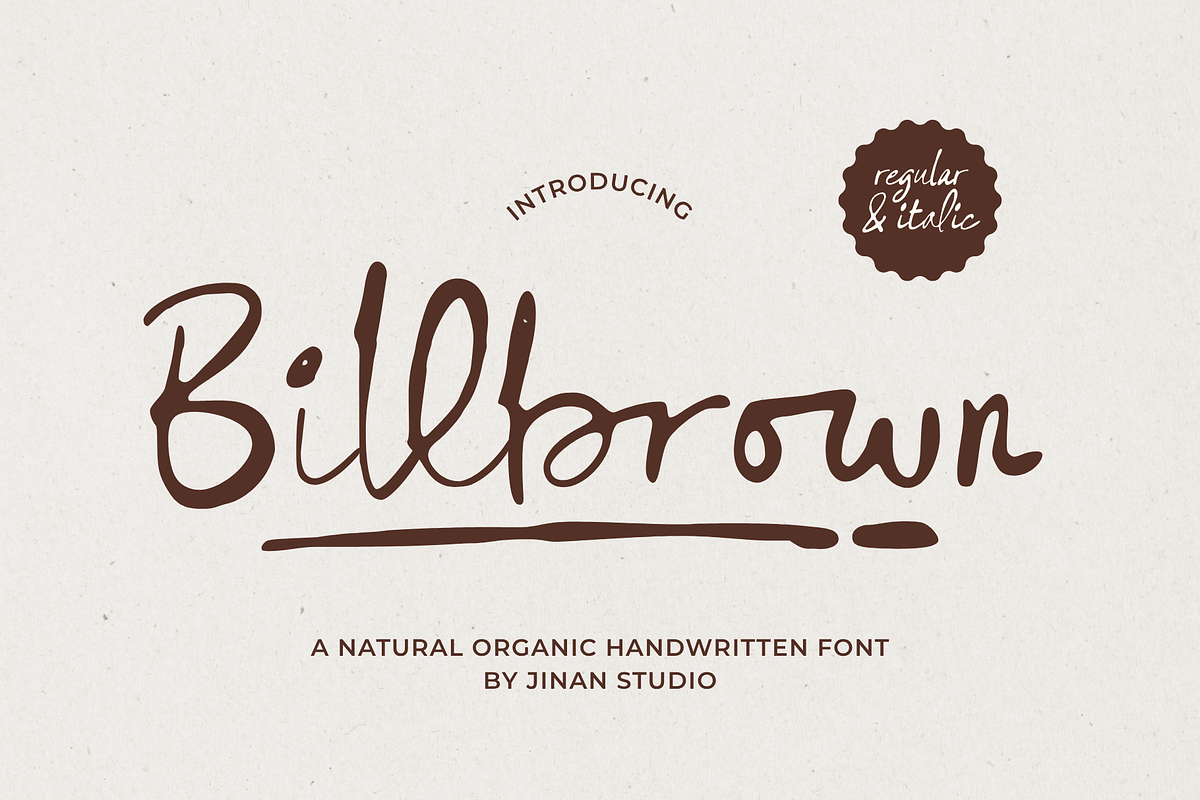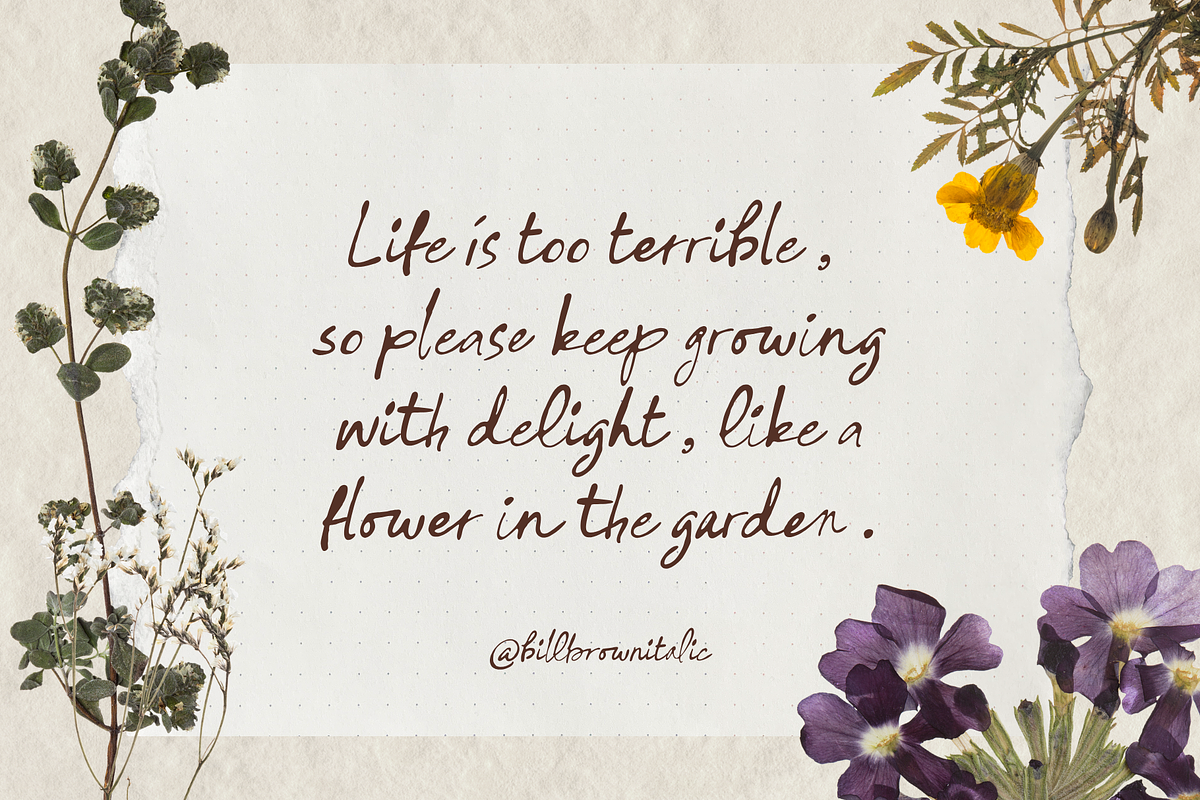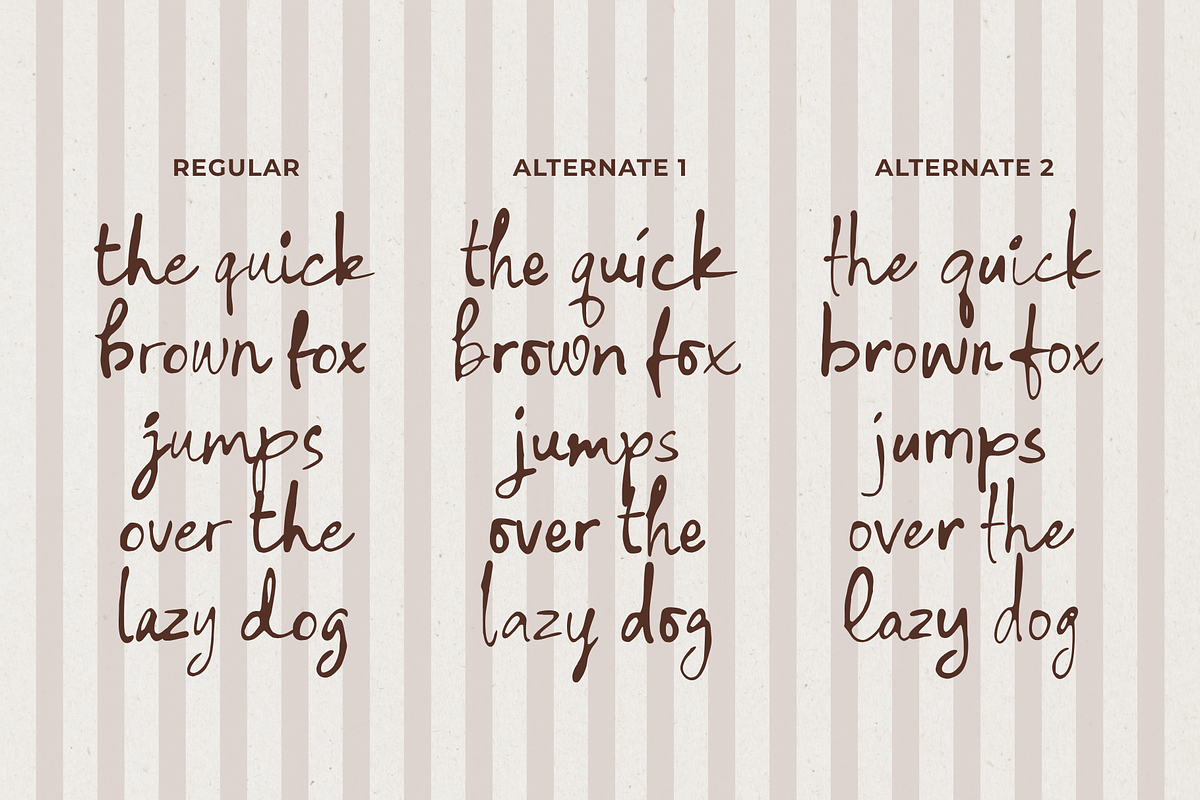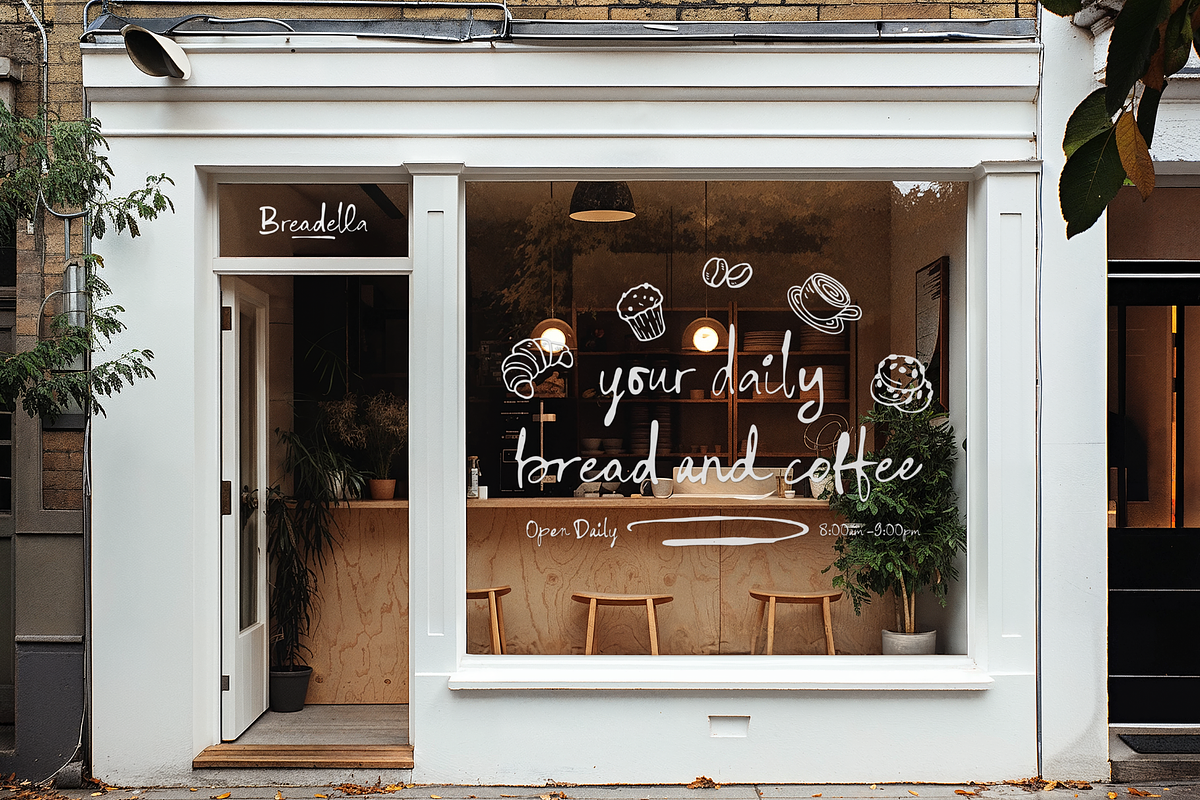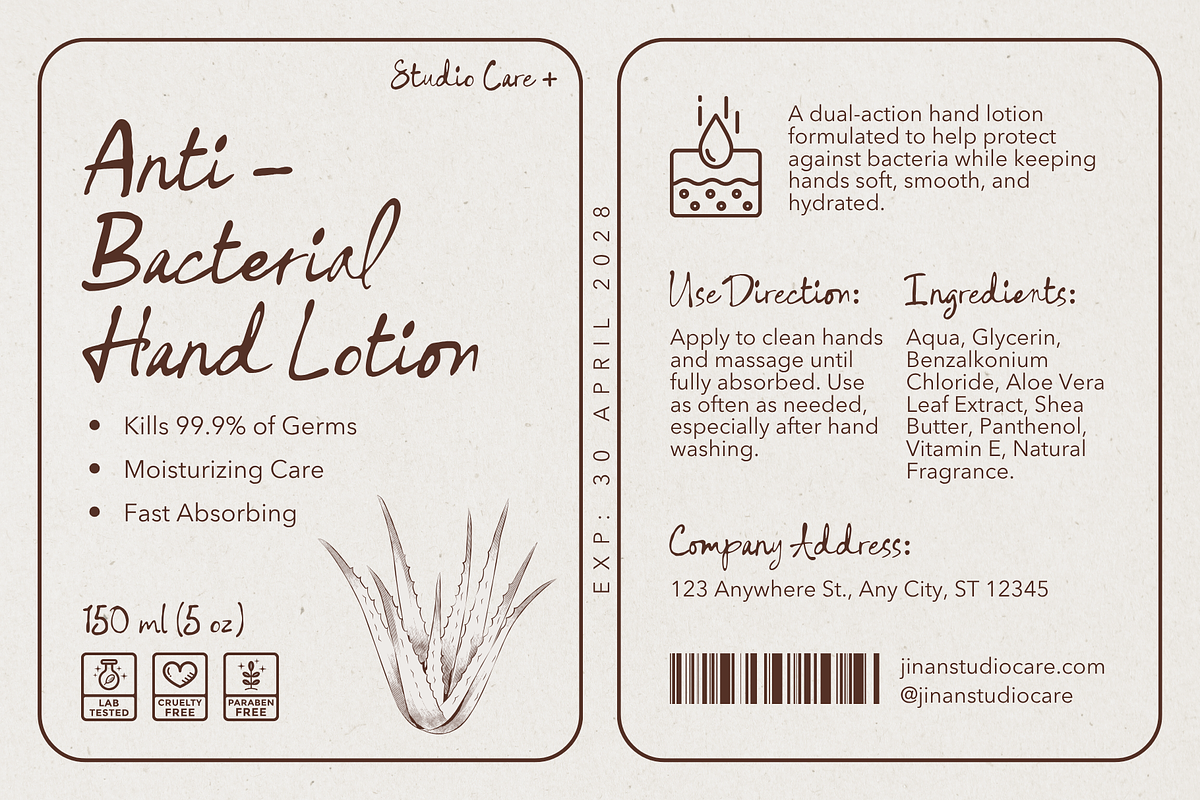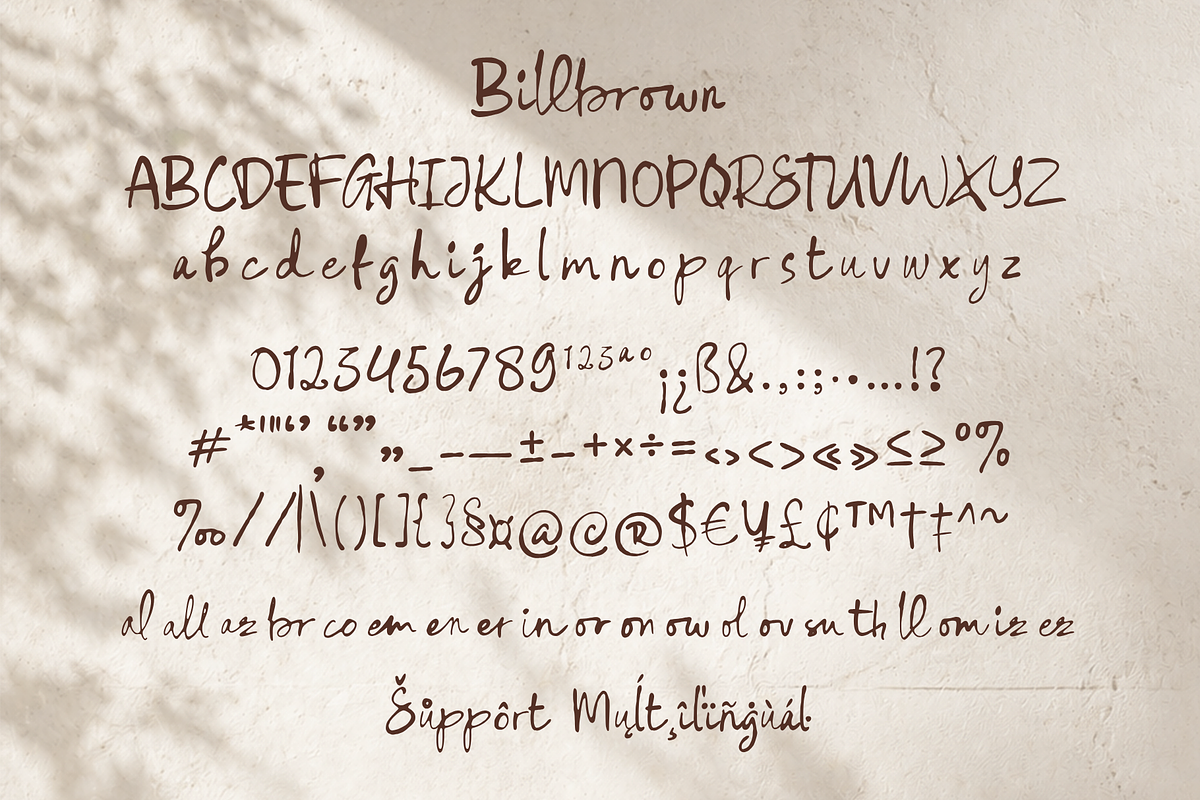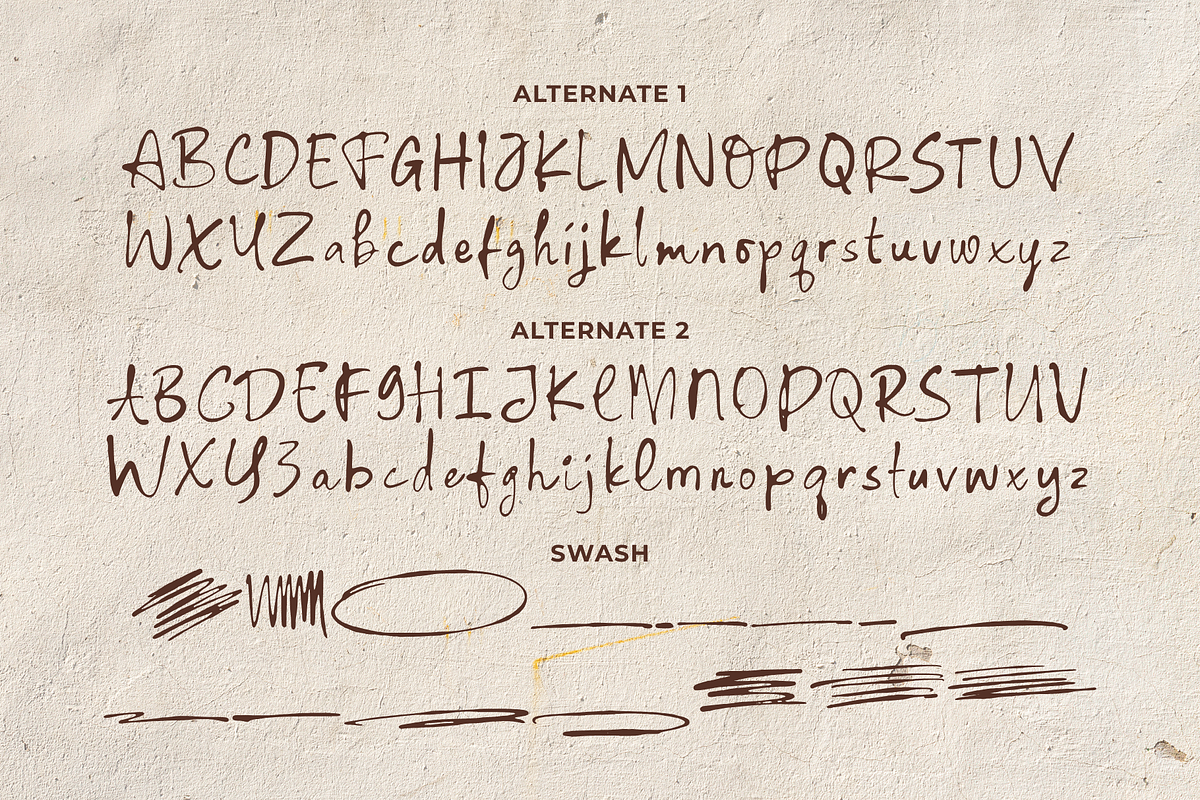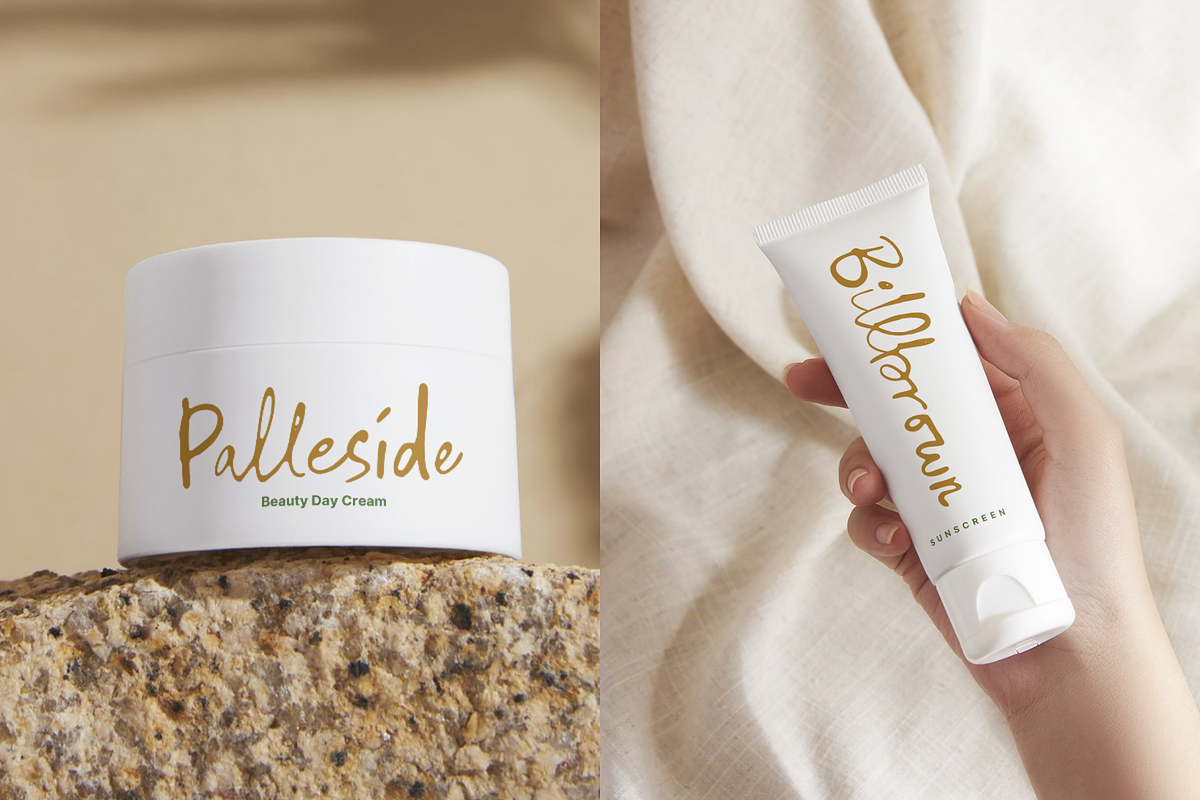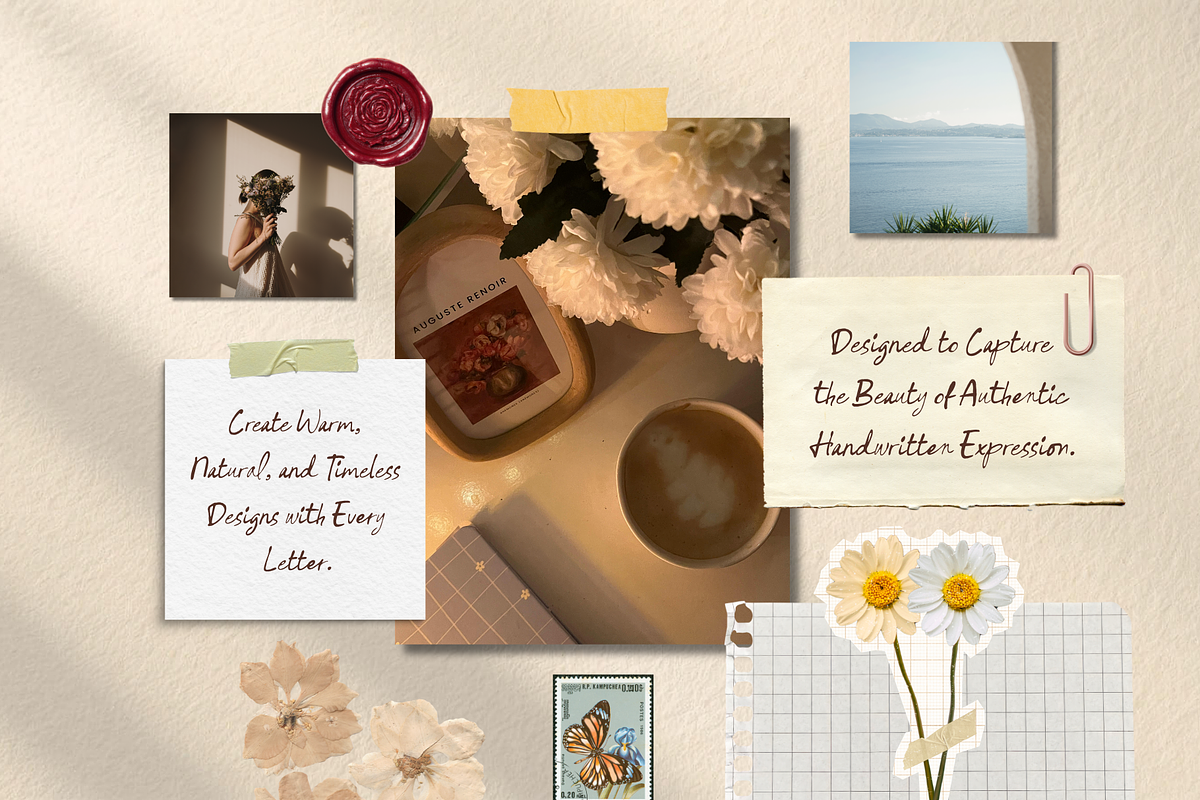
Billbrown – Organic Handwritten Font
Billbrown is a natural organic handwritten font that captures the warmth and authenticity of real handwriting. Designed with smooth, flowing strokes and subtle imperfections, it creates a relaxed, personal, and approachable look. Its effortless style makes every design feel genuine, handcrafted, and full of character.
Perfect for branding, logos, product packaging, café menus, social media graphics, wedding stationery, greeting cards, book covers, quotes, handmade products, lifestyle brands, and creative craft projects. Billbrown brings a friendly and timeless handwritten touch that works beautifully across both print and digital designs.
Organic handwritten style
Natural flowing strokes
Uppercase & lowercase
Alternates & Ligatures
Whether you're creating rustic branding, artisan packaging, or modern lifestyle designs, Billbrown delivers an authentic handwritten appearance that feels warm, elegant, and effortlessly stylish.